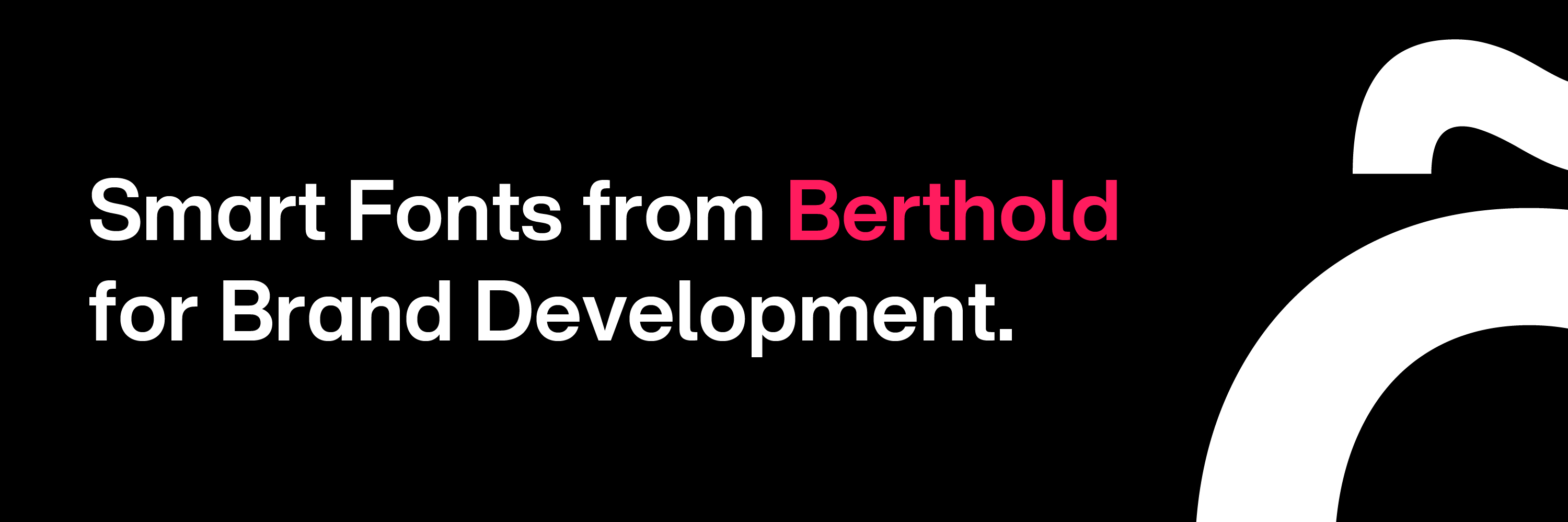
Smart Fonts from Berthold
What to look for
Brand development typefaces should support the brand logo – but not overpower it. They’ll be delivering content about the brand, its products and services, so the designs should be highly legible and perform equally well on-screen and in print.
Legibility
Choose fonts that have clear and legible letterforms, especially for body text. Avoid overly decorative or complex fonts that may pose difficulties in reading. The most legible fonts have a large lowercase x-height, open counters (The white space within letters such as ‘o,’ ‘e,’ ‘c,’ etc.), large apertures, and moderate contrast in stroke thickness.
Large Families
Hierarchy is crucial in text-rich documents to help users navigate through content easily. Clear and logical information organization enhances user experience, enabling them to find desired information quickly. Marked contrast between weights within the type family ensures hierarchy.
About Berthold
H. Berthold AG was one of the largest and most successful type foundries in the world, making the transition from foundry type to phototype and digital fonts. Founded in Berlin in 1858, initially to make machined brass printer’s rules, Berthold then soon began casting hand-set metal type and eventually fonts for its proprietary phototypesetting equipment. Berthold’s legacy endures through digital versions of its fonts.
Akzidenz-Grotesk® in Action
Perfect Pairs
Formata® in Action
Perfect Pairs
Poppl-Laudatio® in Action
Perfect Pairs
Concorde® in Action
Perfect Pairs
Berthold Corporate E™ in Action